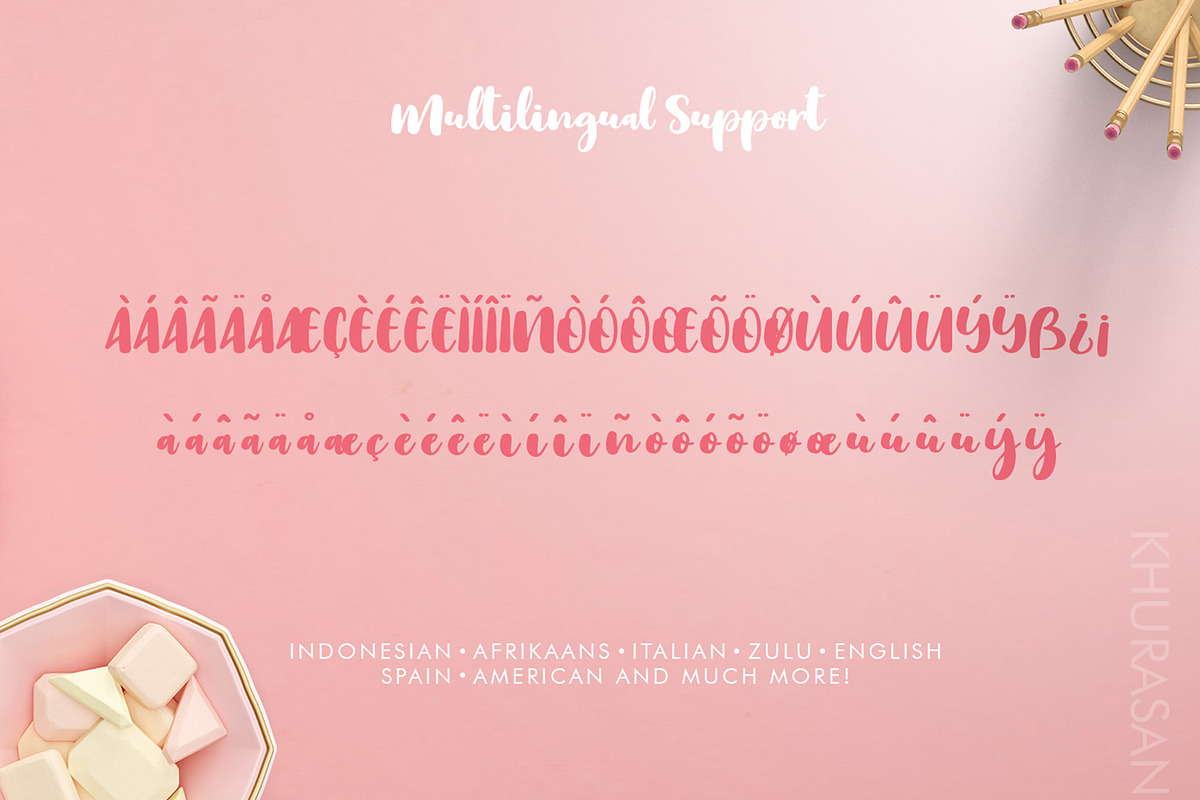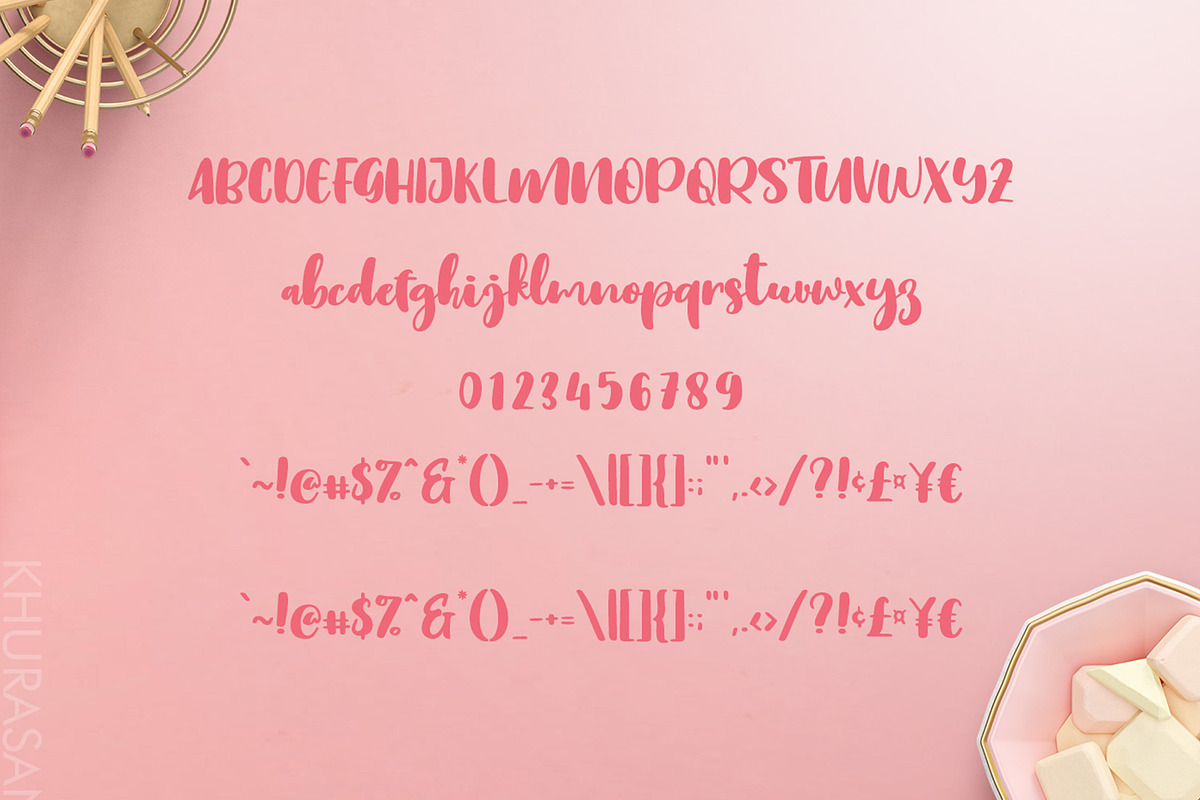
Shilfa Script
Introducing, Shilfa Script font a bold modern calligraphy typeface with cheerful theme for your fun project. Shilfa script font suitable for logo, branding, greeting card, poster and any design that you create.
- OpenType Features
- Multilingual support ÀÁÂÃÄÅÇEÈÉÊËIÌÍÎÏNÑOØÒÓÔÕÖUÙÜÚÛWYÝŸ?ŸÆ